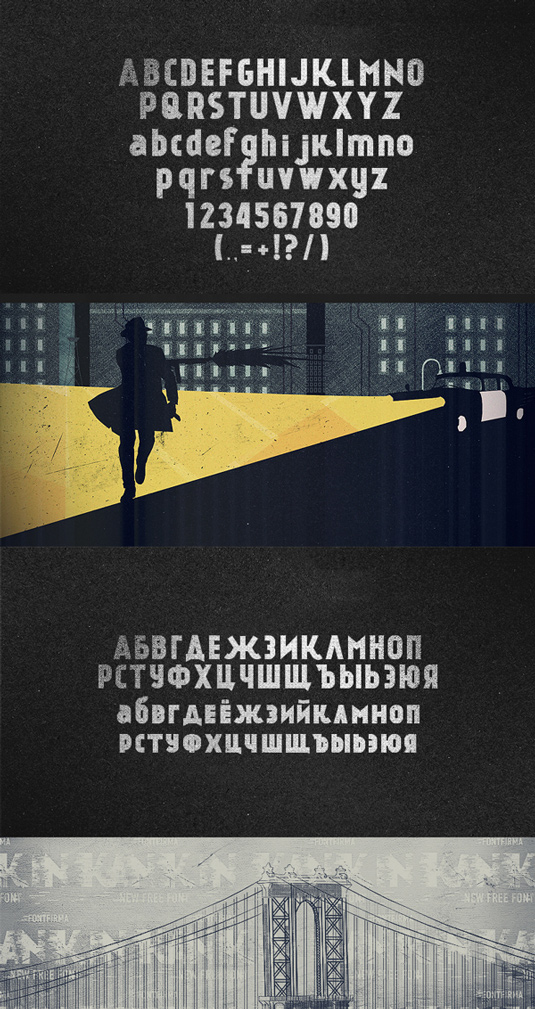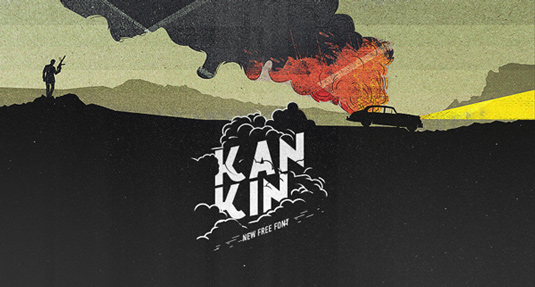
Font of the day: Kankin
Today's typeface showcase is Kankin by Alex Frukta, which is free in exchange for a social media share.
Kankin by Alex Frukta
Today's typeface of choice, Kankin, was designed by Russian artist Alex Frukta. A personal typography project for font foundry Fontfabric, Kankin will add impact and style to any comic book design.